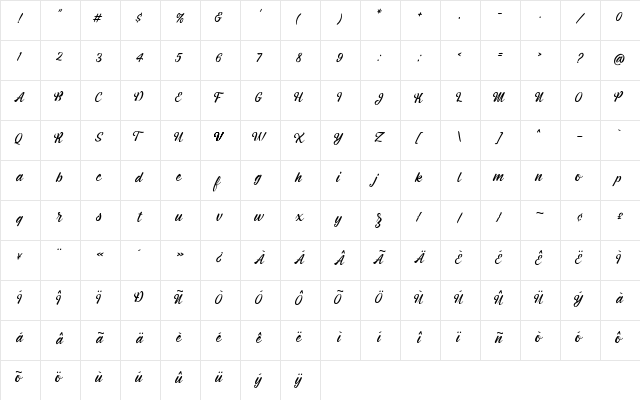
Montagne Script Free Demo Regular
Design Context for Montagne Script Free Demo Typeface
Montagne Script Free Demo brings a calligraphic fluidity to the page — its connecting strokes and expressive curves give it an unmistakably human quality.
Font Pairing: Combine Montagne Script Free Demo with a simple geometric sans for maximum contrast — the tension between flowing curves and clean structure is a classic typographic pairing.
Pro Tip: Use Montagne Script Free Demo for short runs of text — names, titles, or taglines. Extended body copy in script faces tires the eye quickly.